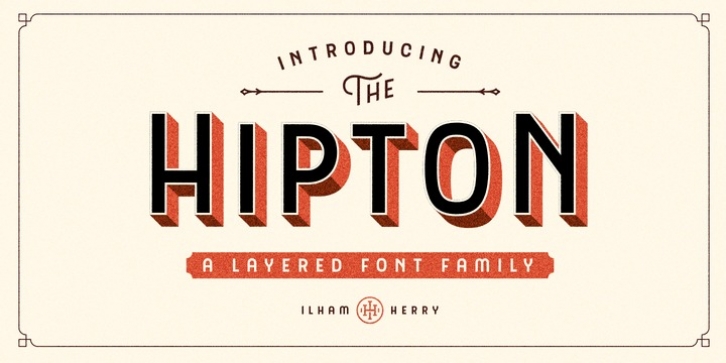
A new layered font family called The Hipton. Inspired from single strokes of gothic letters from signed paintings and made it layered. This is a collection of styles with a layered type system and many possible combinations and options. As a display typeface The Hipton is suitable for headlines, logotypes, signs, posters, greeting card, letterhead, t-shirt, and many more.